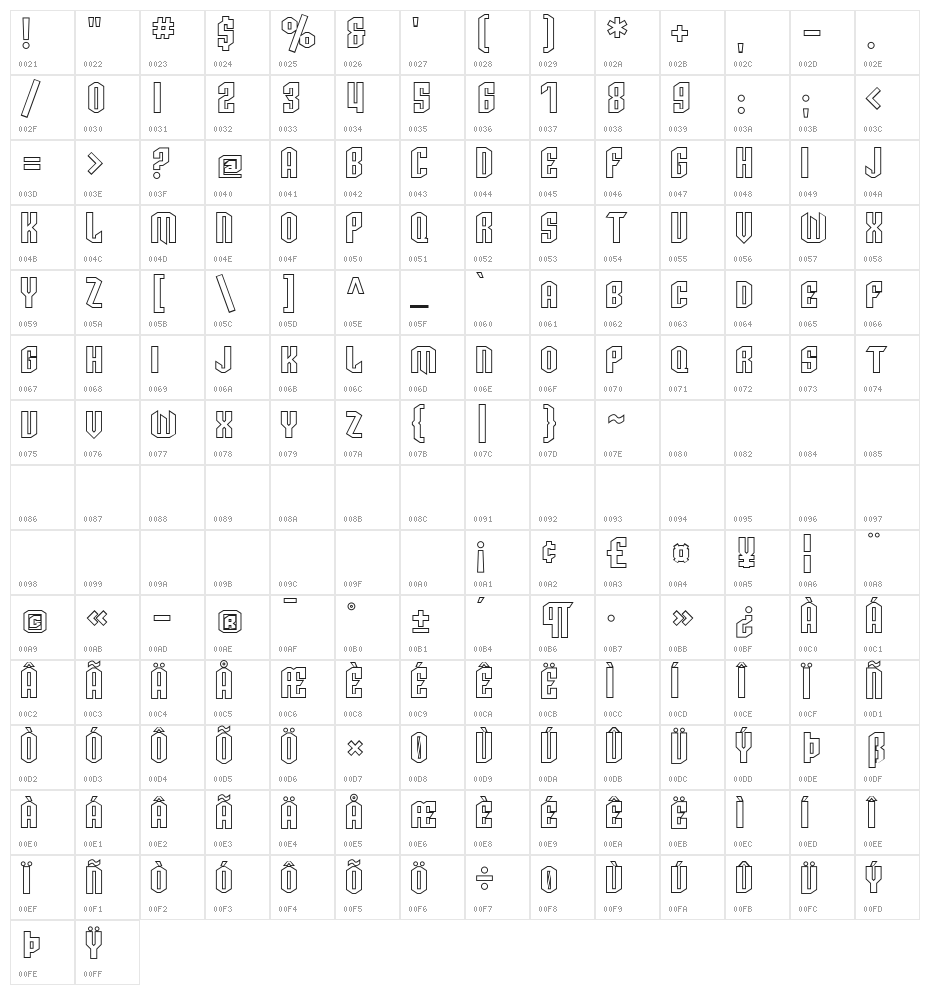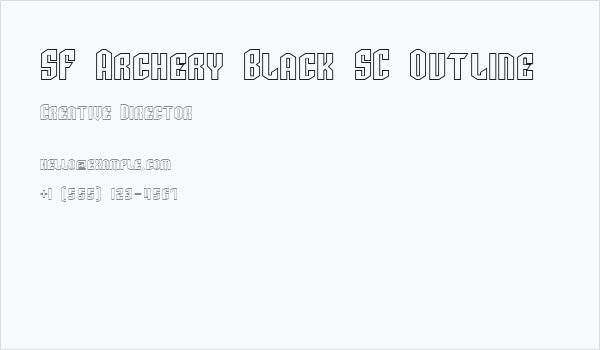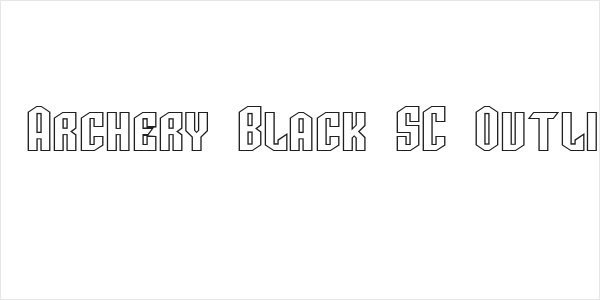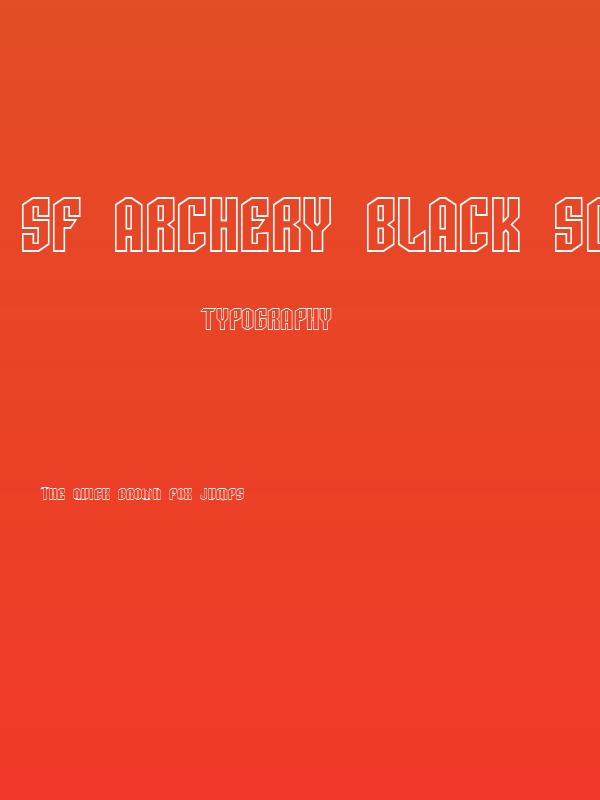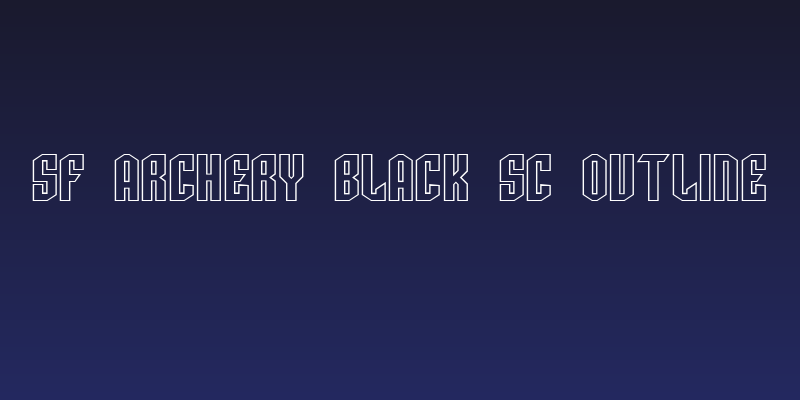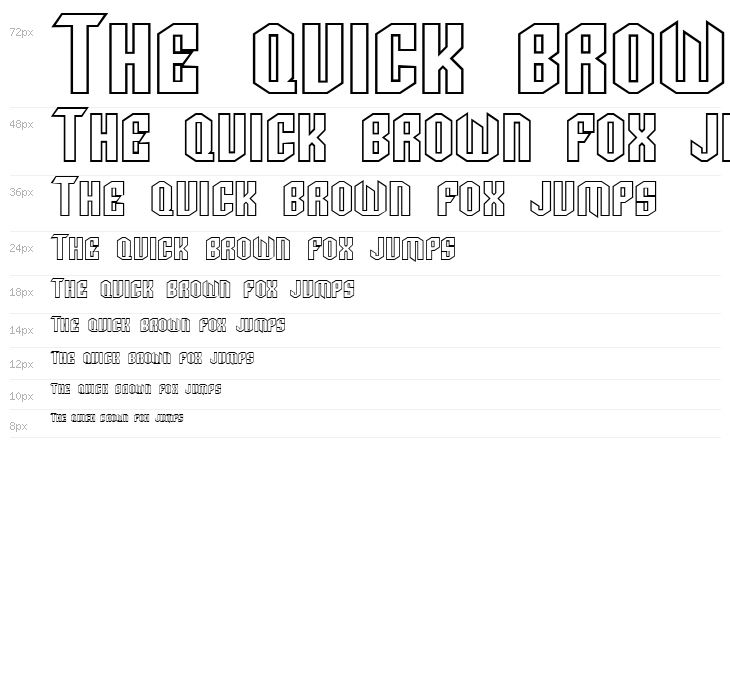
SF Archery Black SC Outline Font
SF Archery Black SC Outline Description
This font features a bold, geometric design with a distinct outline style. Each character is crafted with sharp angles and clean lines, creating a modern and striking appearance. The uppercase letters are uniform in height, while the numerals and special characters maintain the same bold, outlined aesthetic. The font's structure is reminiscent of architectural forms, giving it a strong and commanding presence. Its outlined nature allows for creative use of color and layering, making it versatile for various design applications.
| Proposed Projects | Ideal for posters, logos, headlines, and any design requiring a bold, eye-catching typeface. |